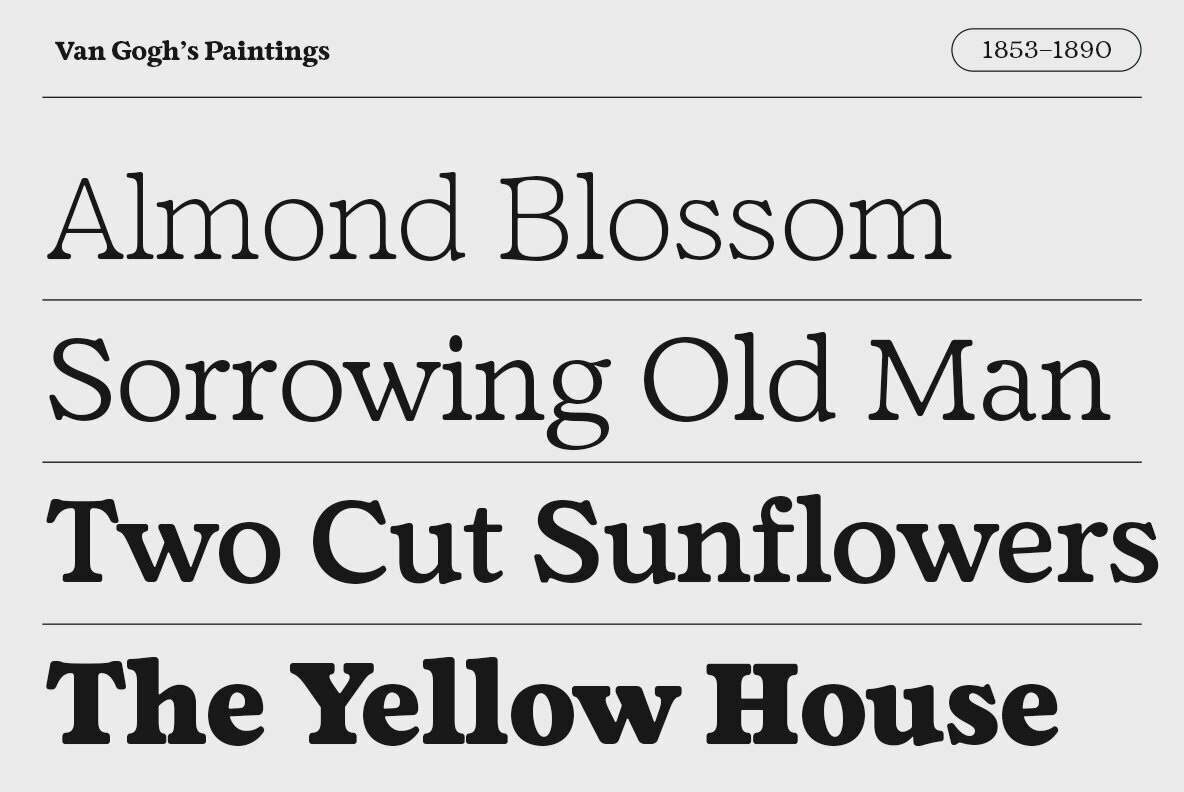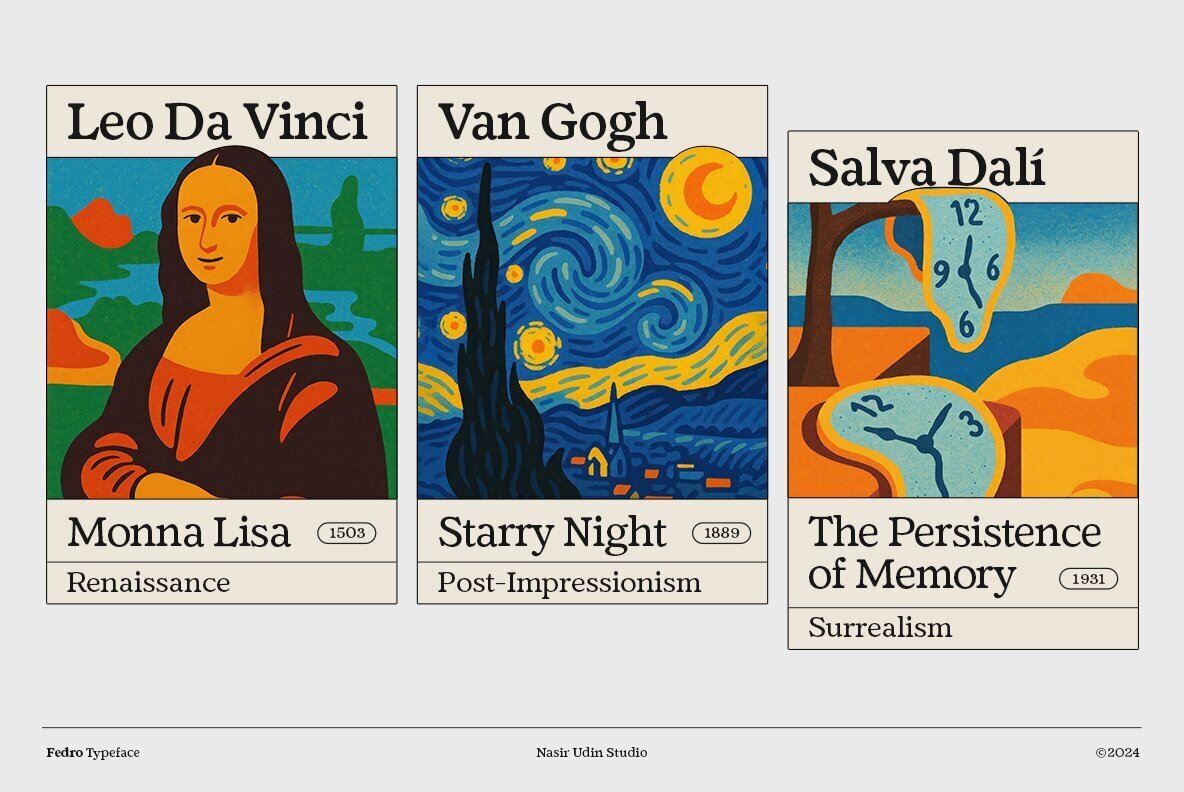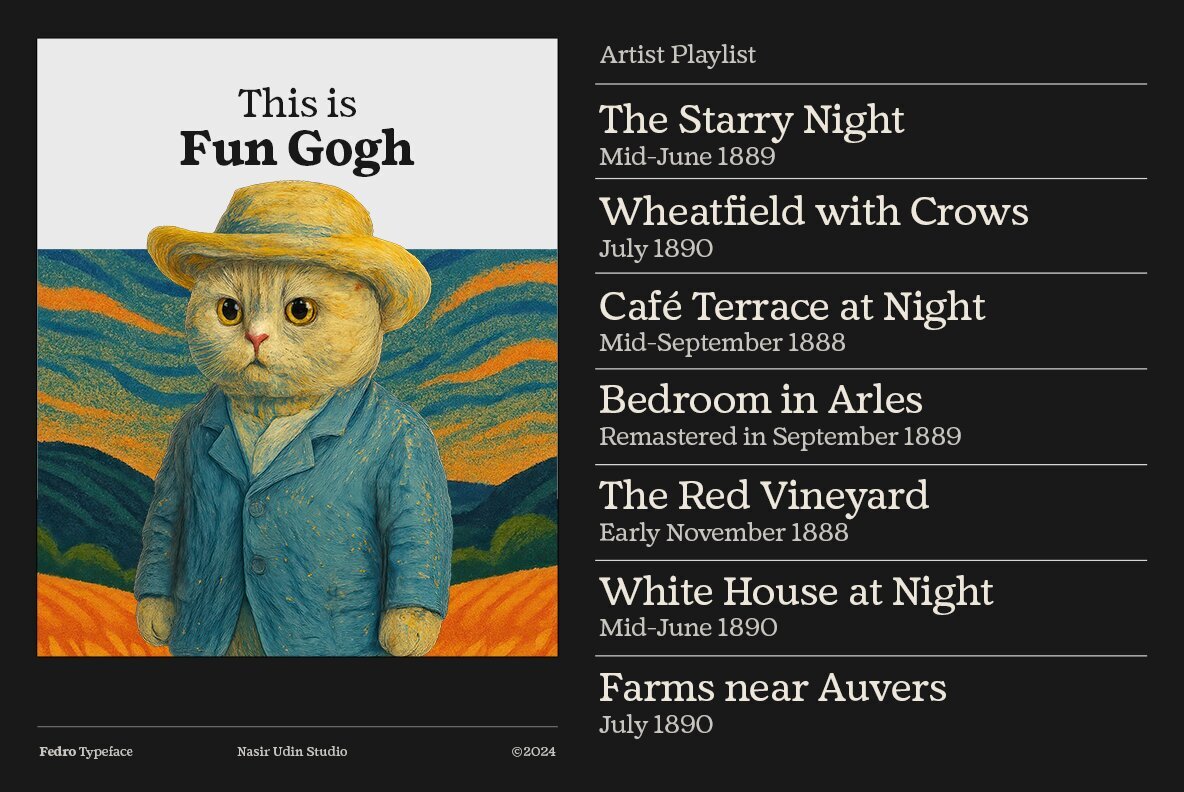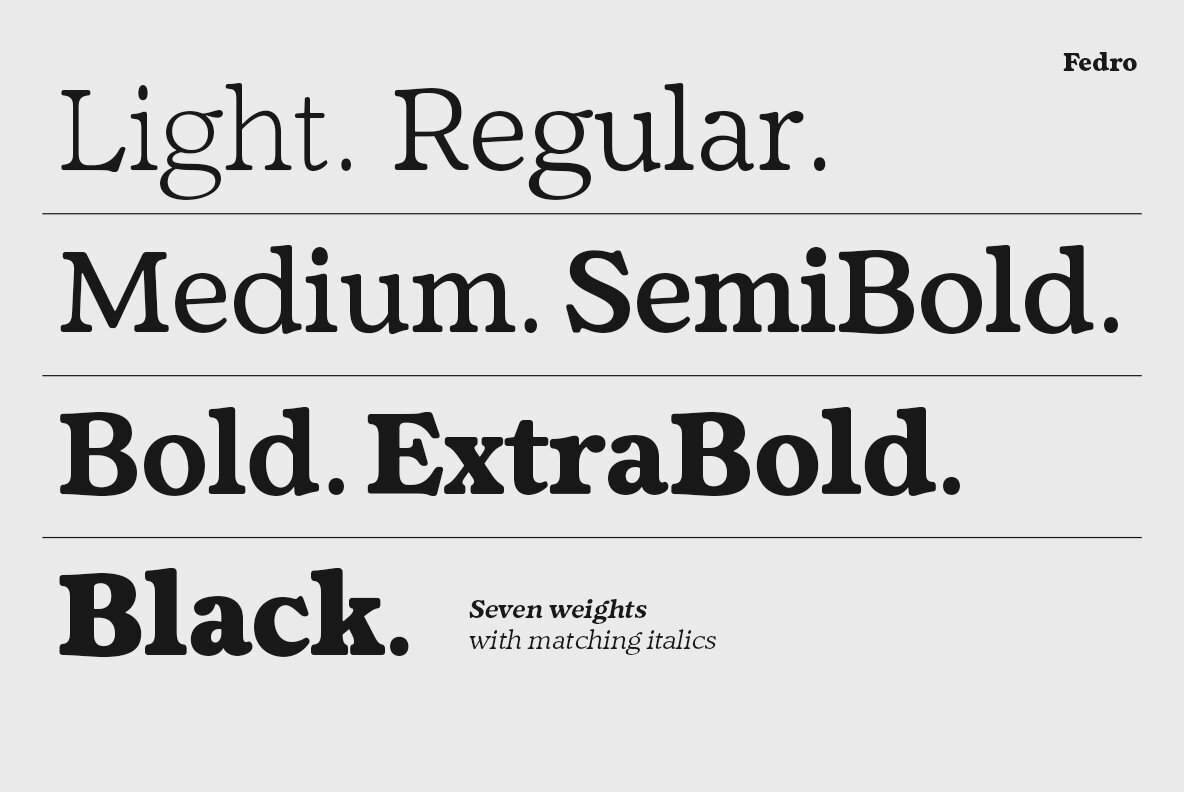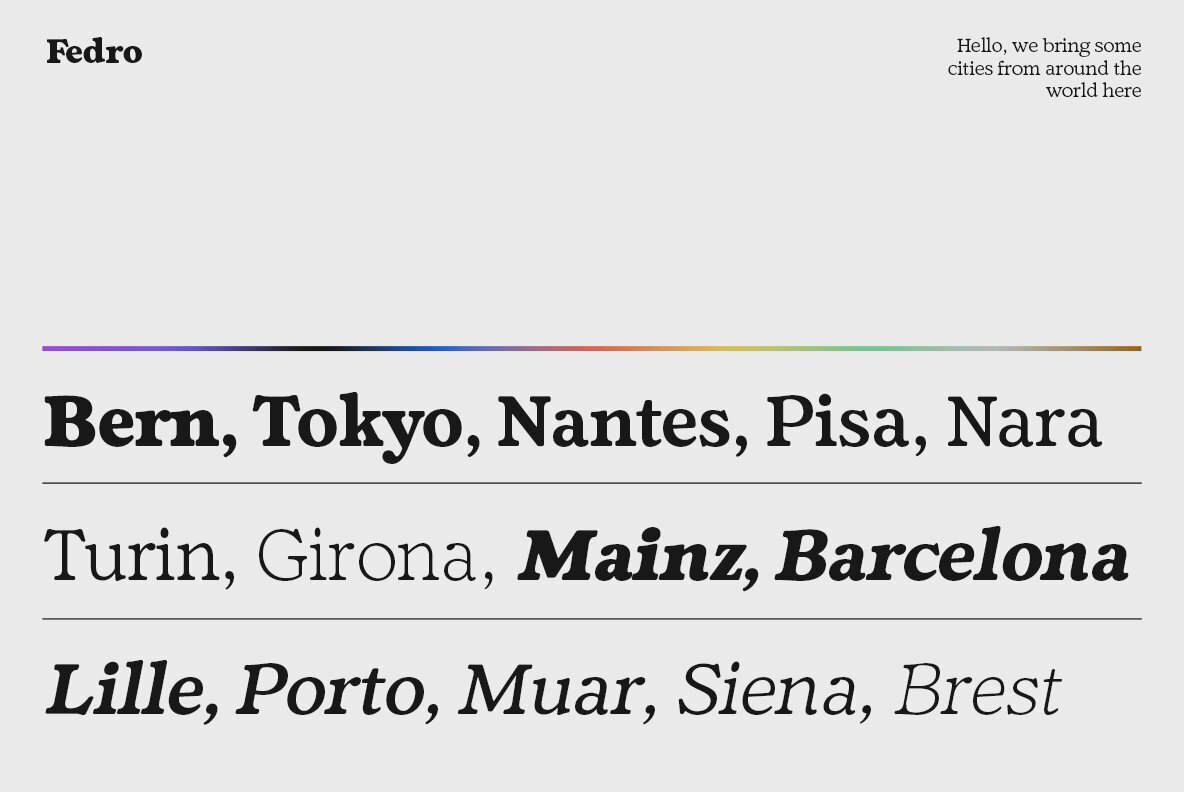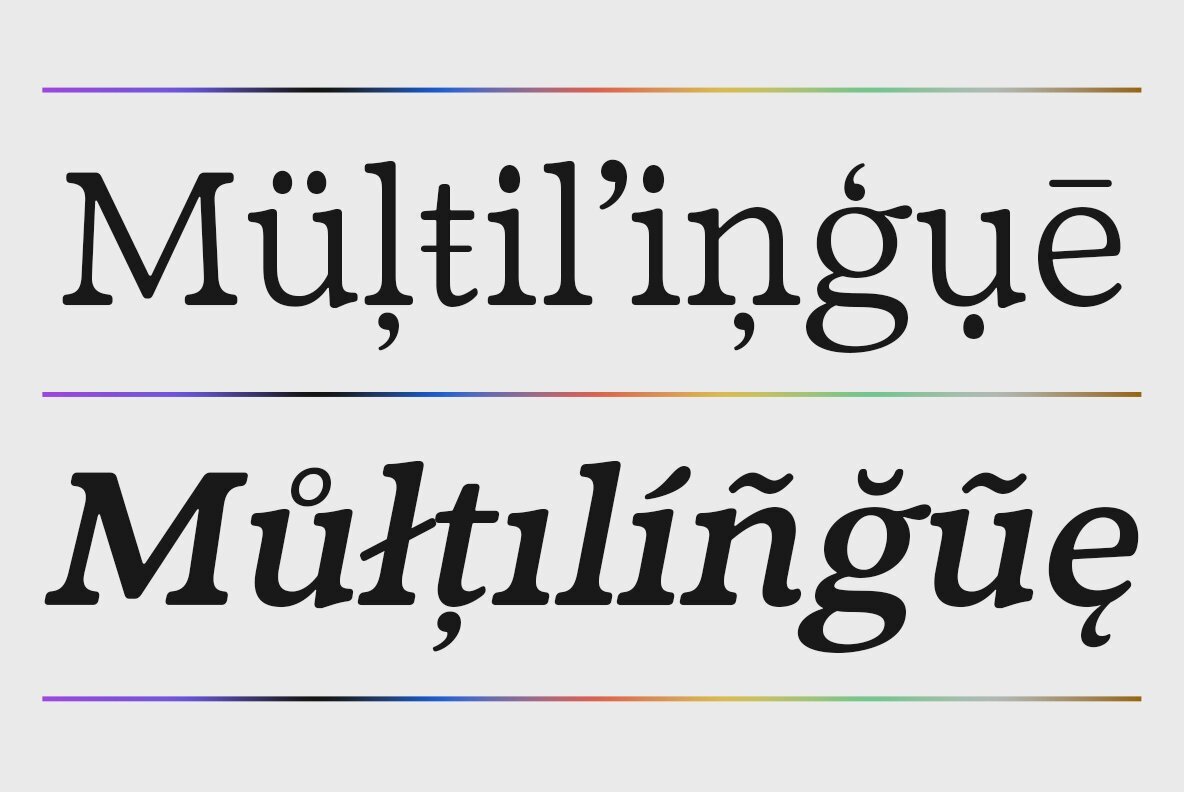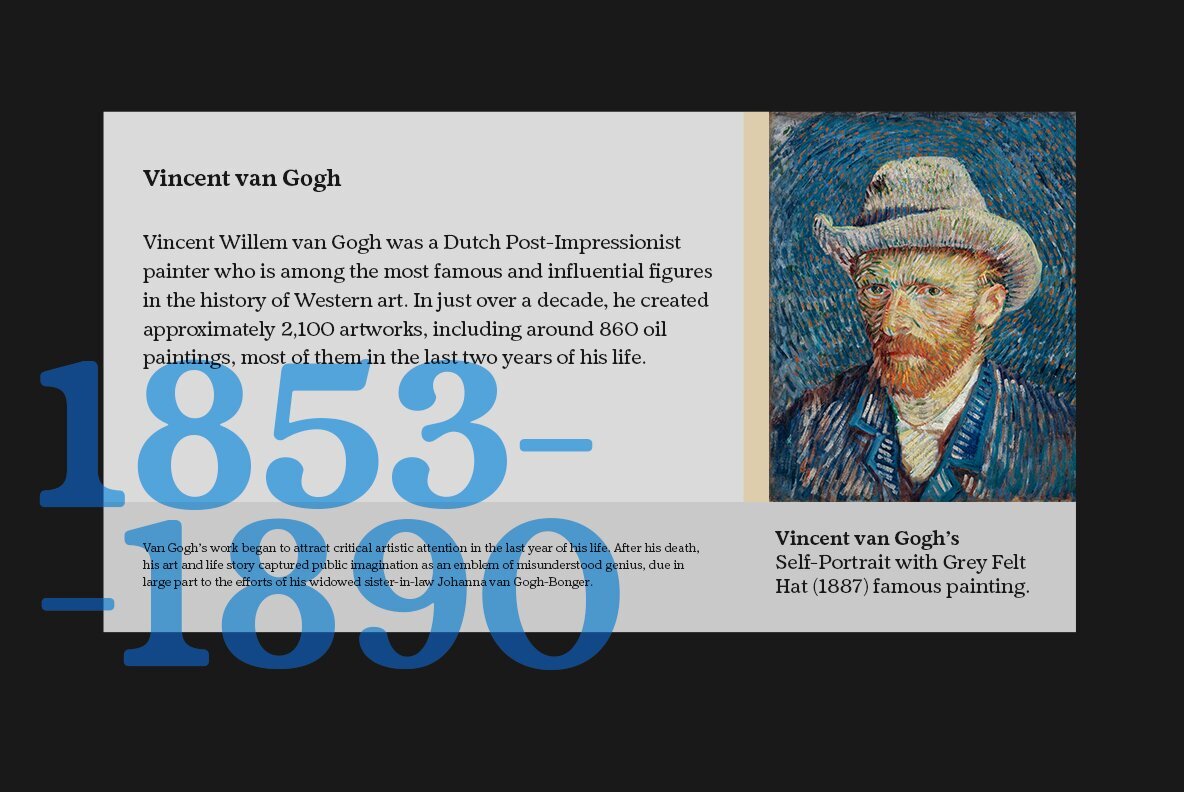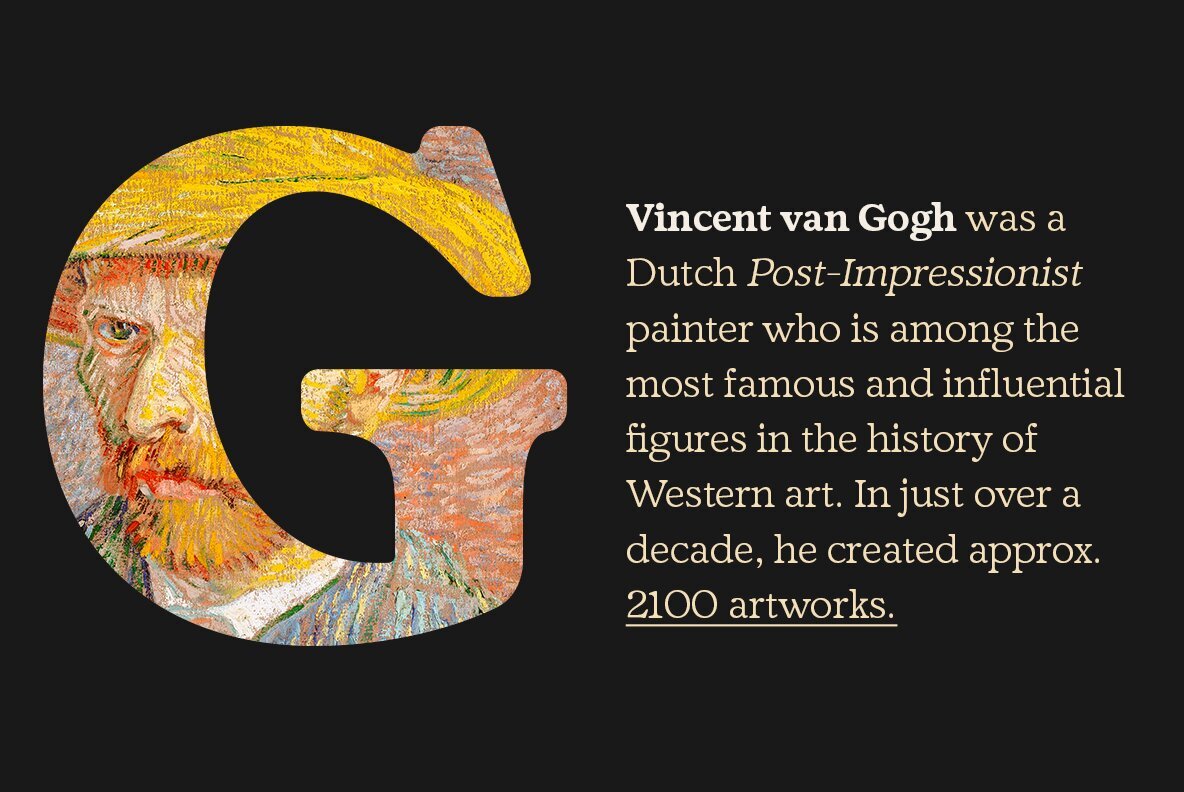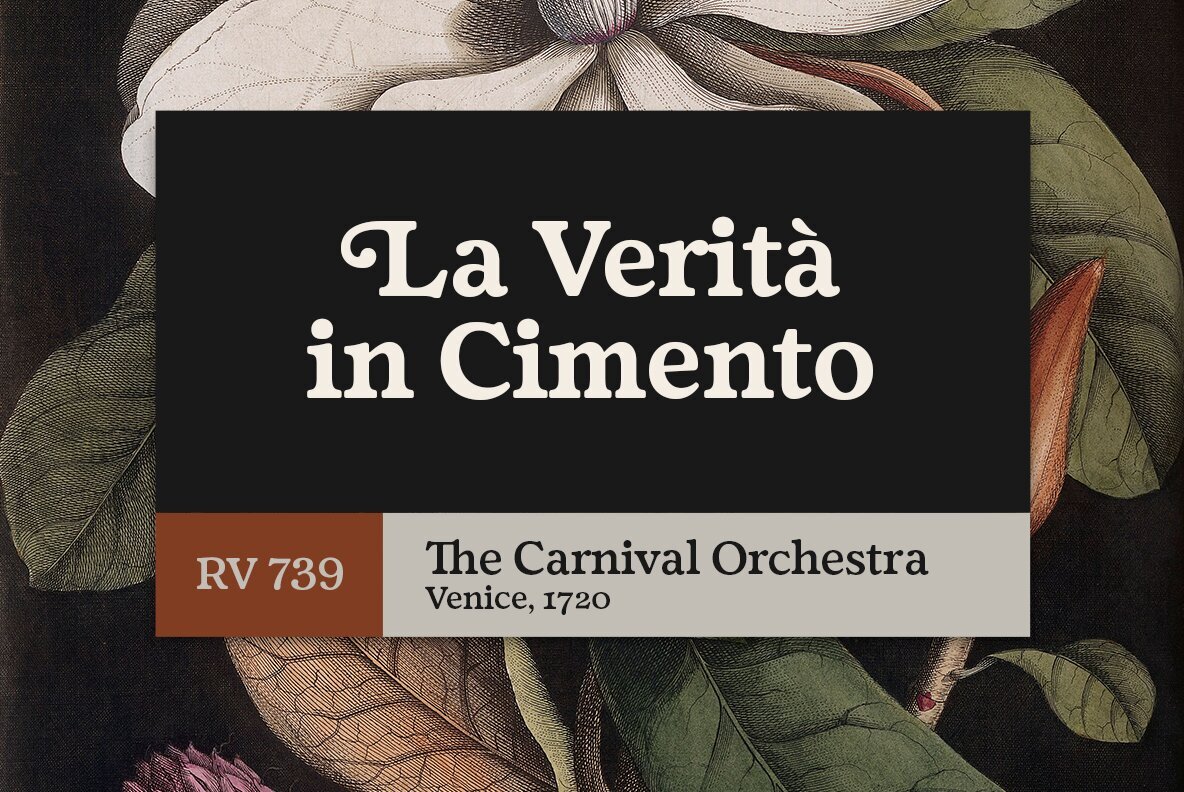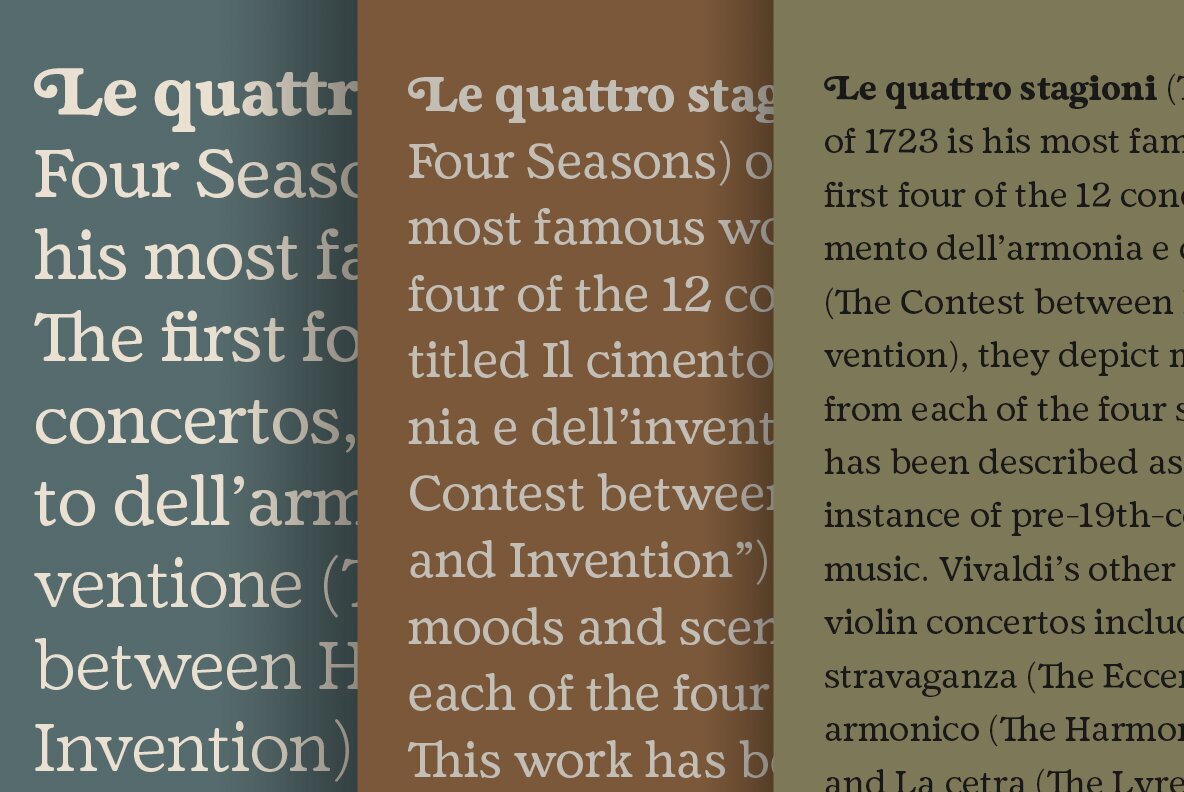
Fedro Font
Fedro is a retro, soft display serif typeface with 14 fonts. It’s a classic typeface fuse with modern appeal and features, perfect for graphic projects that require a classic touch but feel modern. Ranging from light to black with its matching italics, Fedro offers many possibilities to be applied in many graphic or editorial projects. Lighter weights are suitable for body text, and the heavier ones are perfect for striking headlines, perfectly suitable for display purposes such as branding, editorial, headlines, and packaging. Thanks to the OpenType features built in, many stylistic sets and swashes are fun to play with. And with the Extended Latin character set plus Cyrillic, Fedro covers 250+ languages.